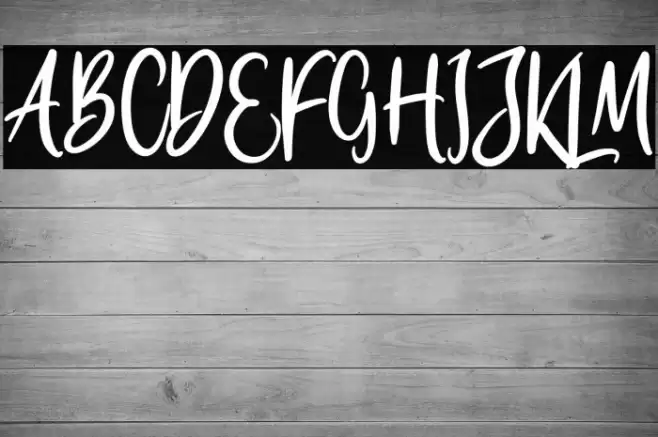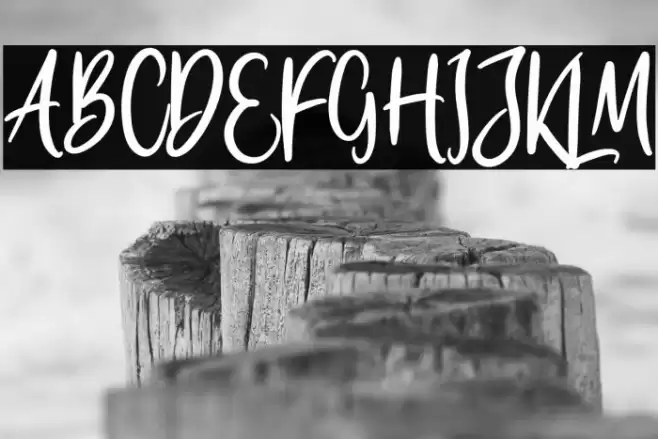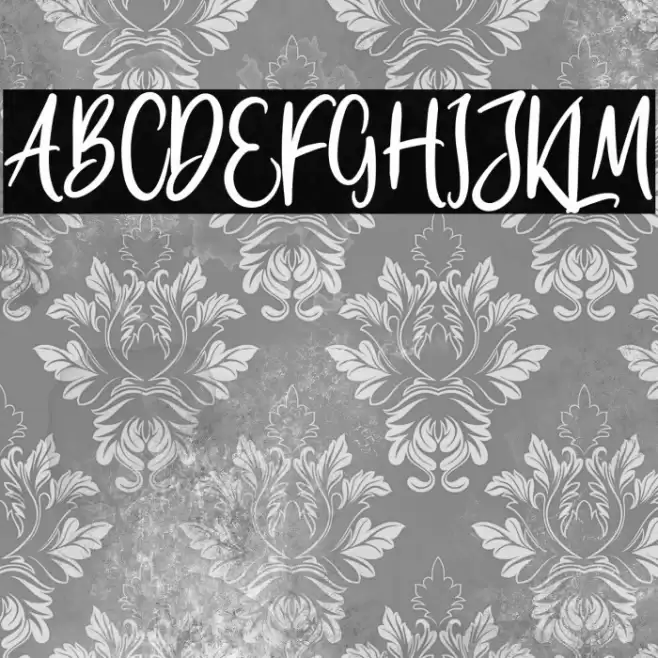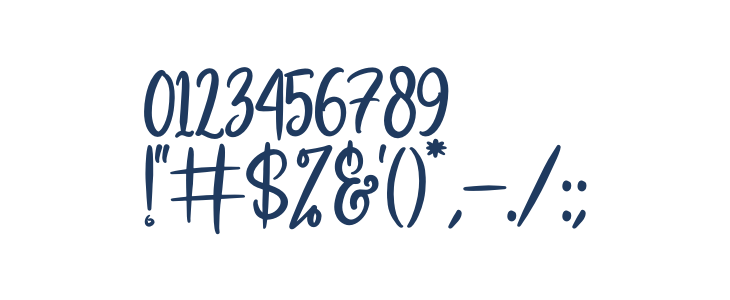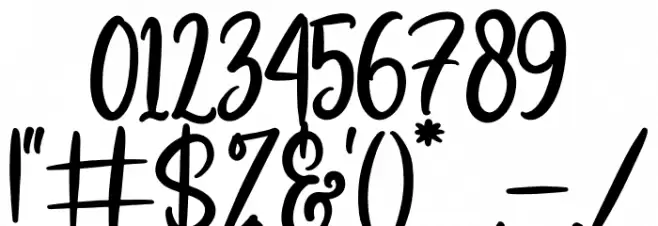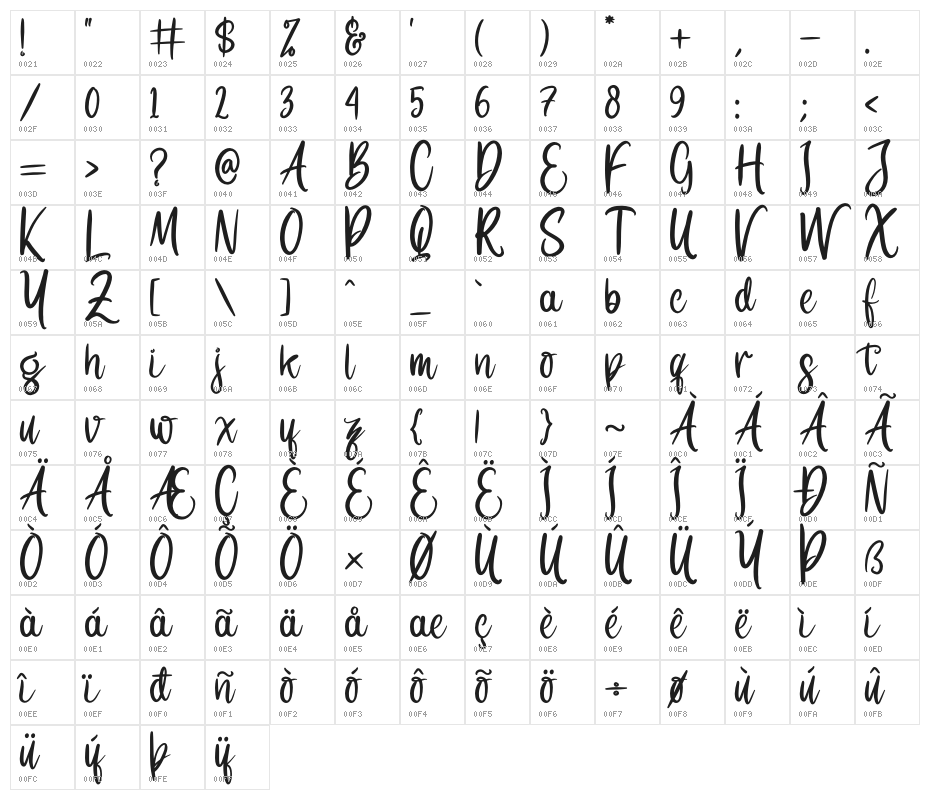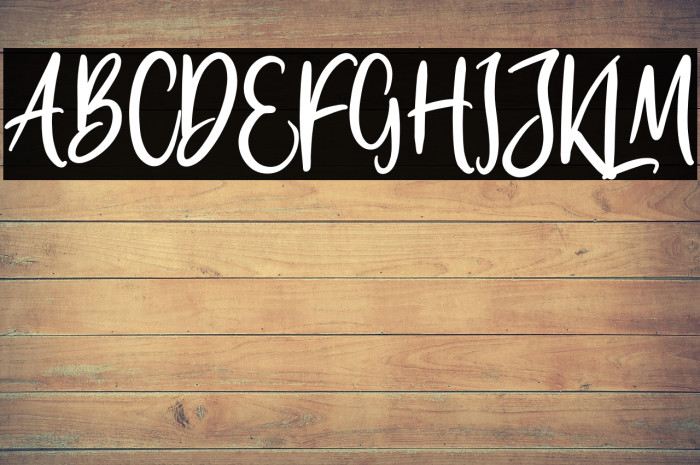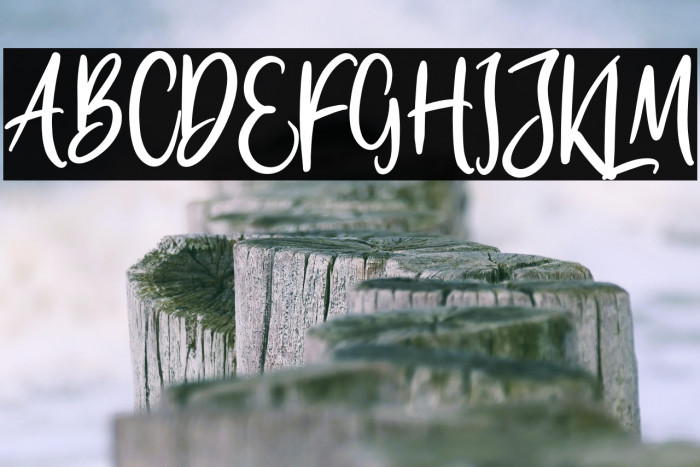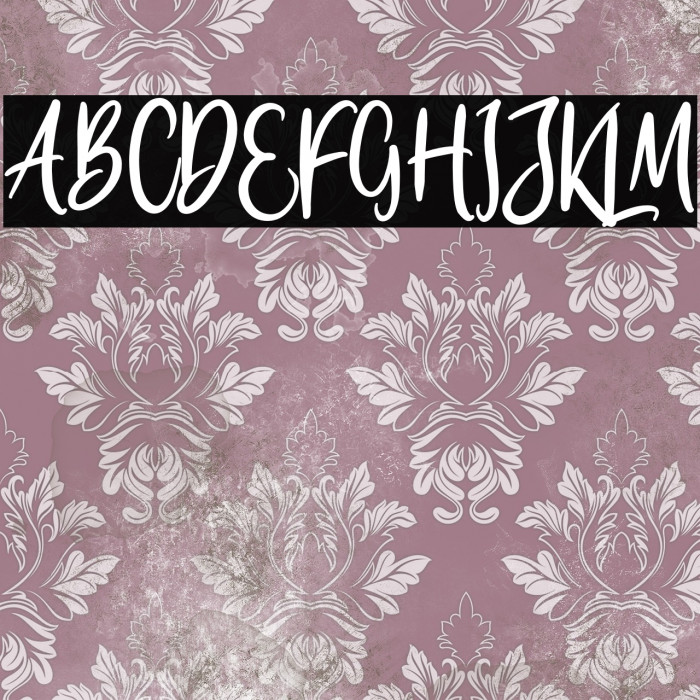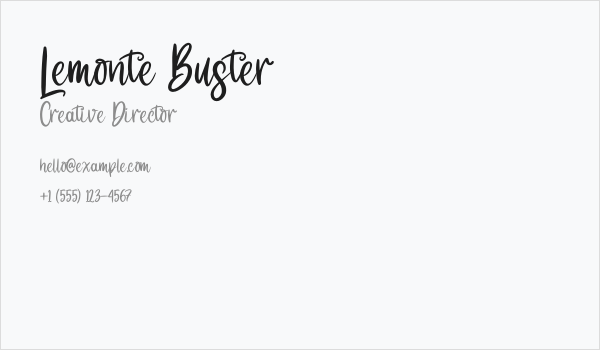
Lemonte Buster Font
Lemonte Buster Description
This font features a lively and energetic handwritten style, characterized by its bold and flowing strokes. The uppercase letters are tall and slightly slanted, giving a sense of movement and dynamism. The lowercase letters maintain a consistent style, with playful loops and curves that add a whimsical touch. Numbers and special characters are designed to match the overall aesthetic, ensuring a cohesive look. The font's boldness and unique character make it stand out, suitable for projects that require a personal and creative touch.
A bold, energetic handwritten font with playful loops and curves from Uncategorized fonts.
- Proposed Projects: Ideal for greeting cards, invitations, branding, and social media graphics.